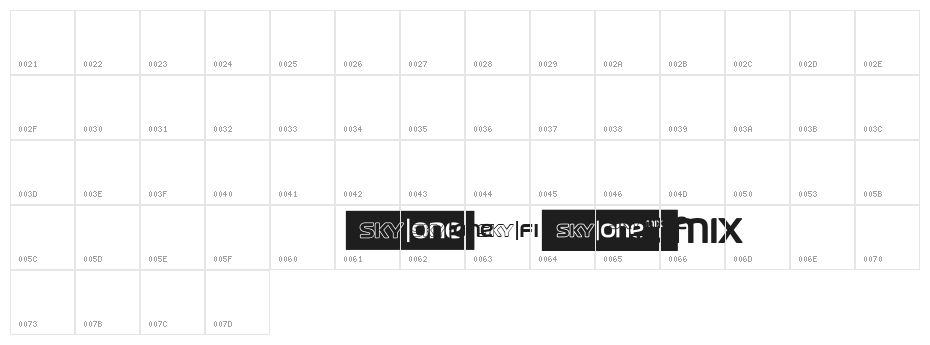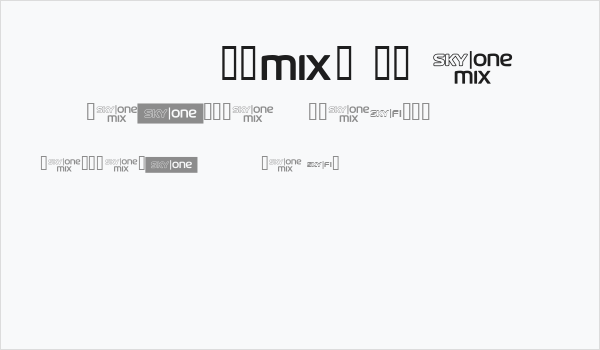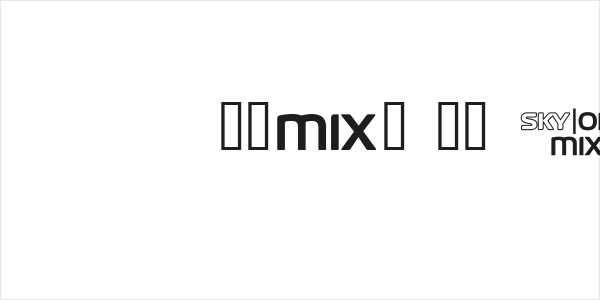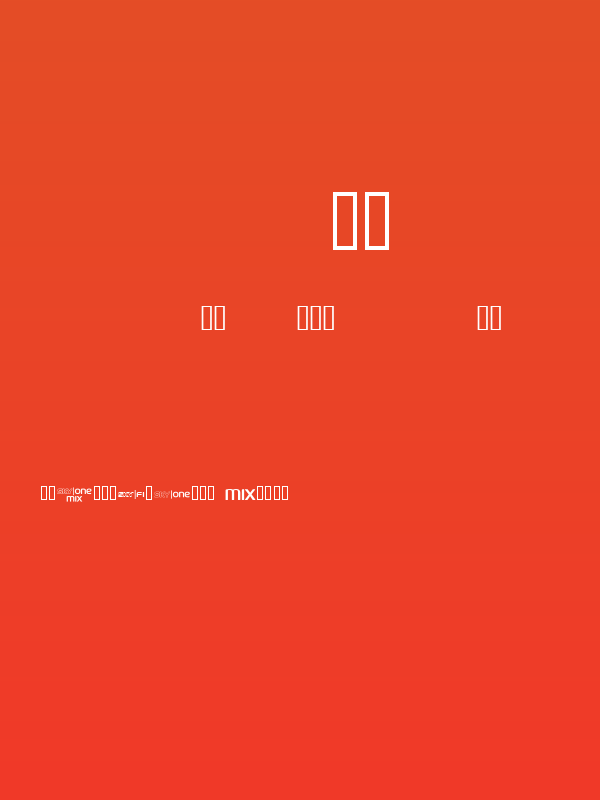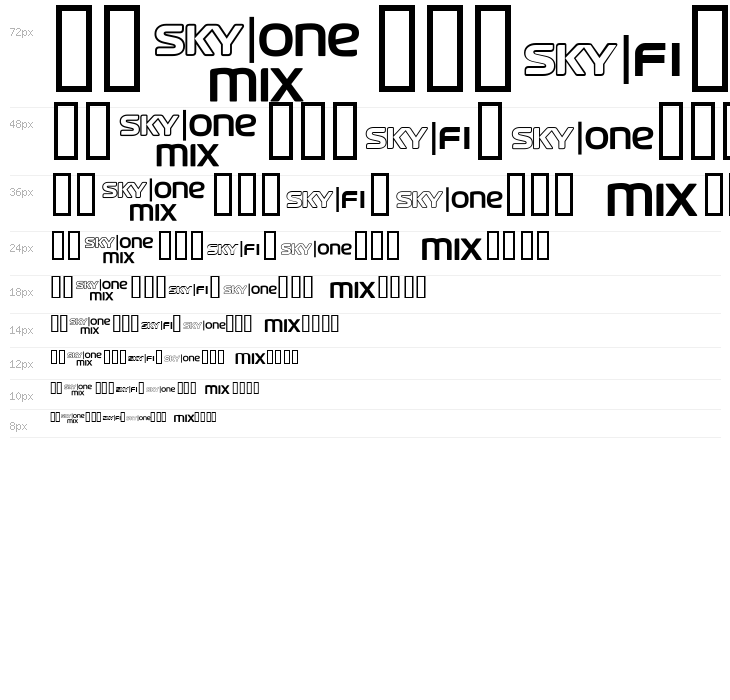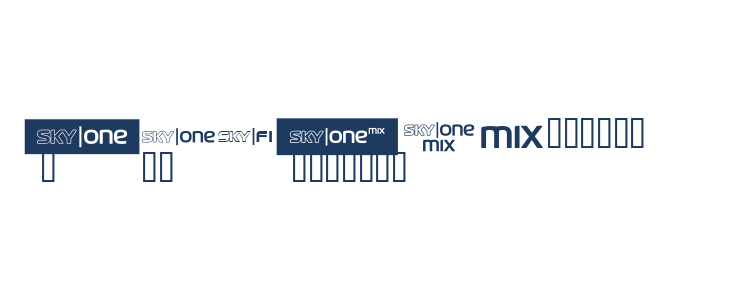
SKYfontone Font
SKYfontone Description
This font features a modern and sleek design, characterized by its clean lines and geometric shapes. The letters are bold and evenly spaced, providing a strong visual impact. The style is consistent across both uppercase and lowercase letters, maintaining a uniform appearance. The numerals and special characters are designed to match the overall aesthetic, ensuring a cohesive look. This font is versatile and can be used in various design projects that require a contemporary and professional appearance.